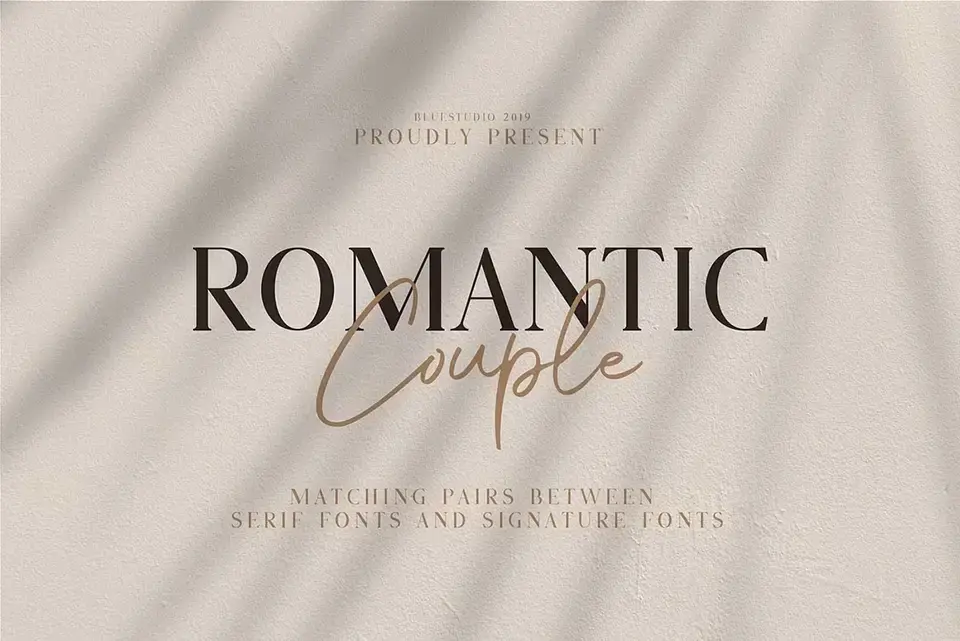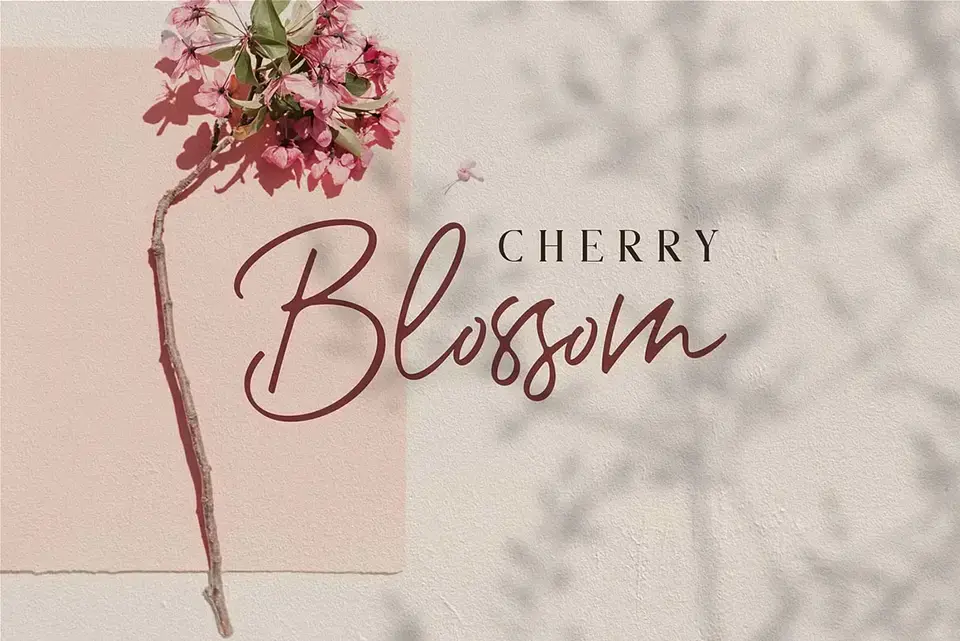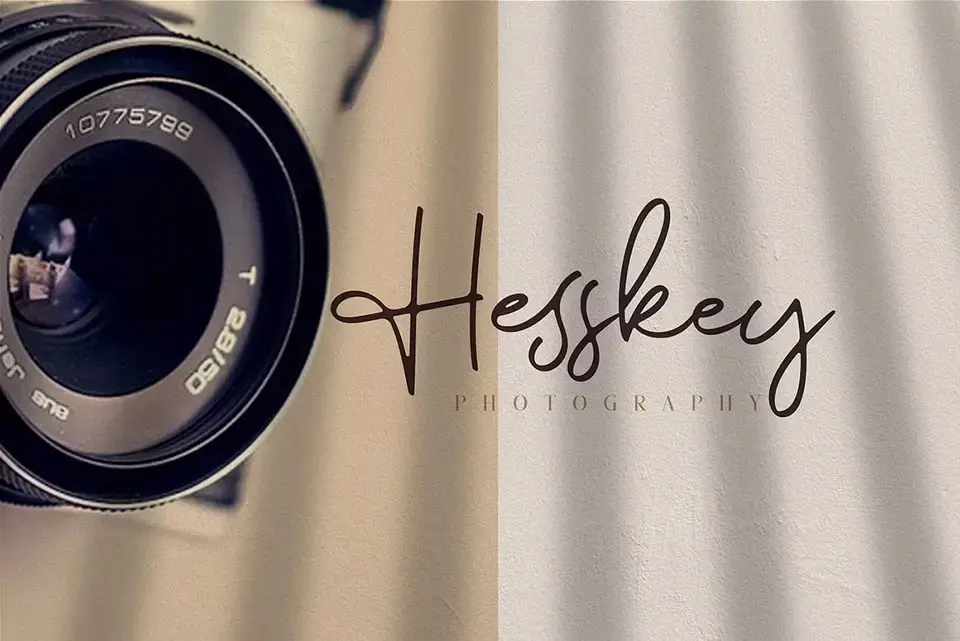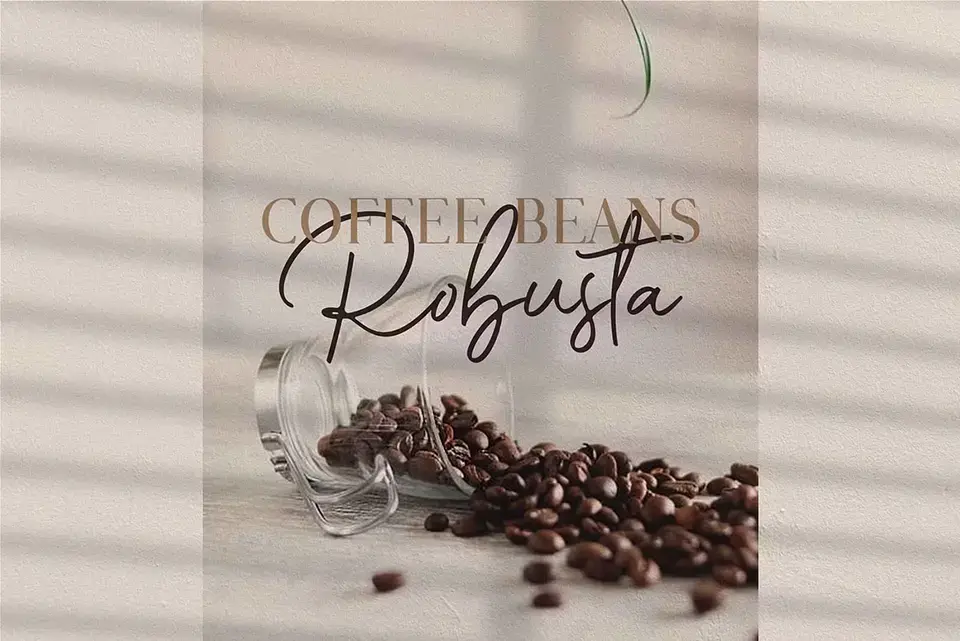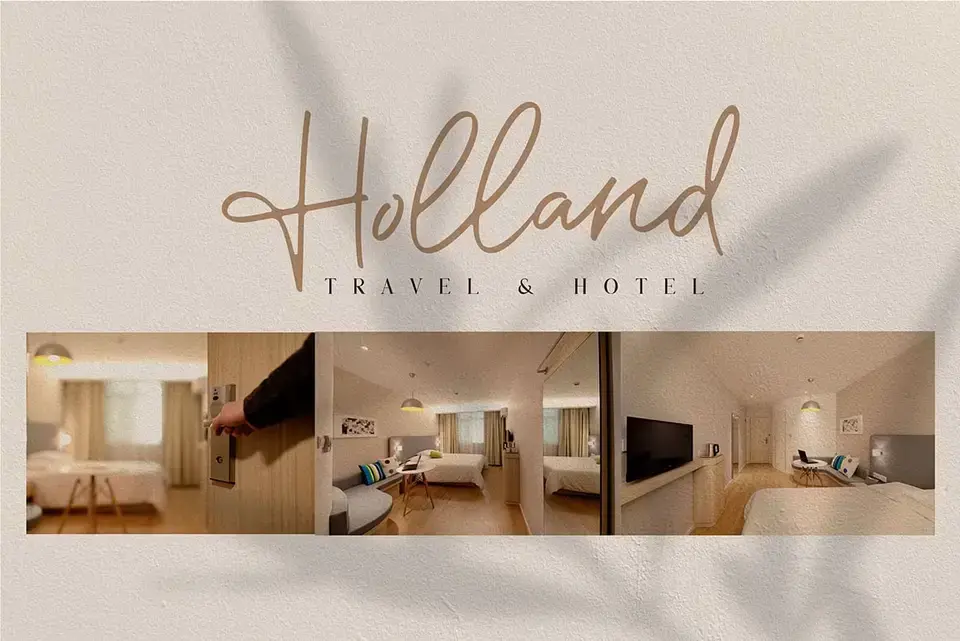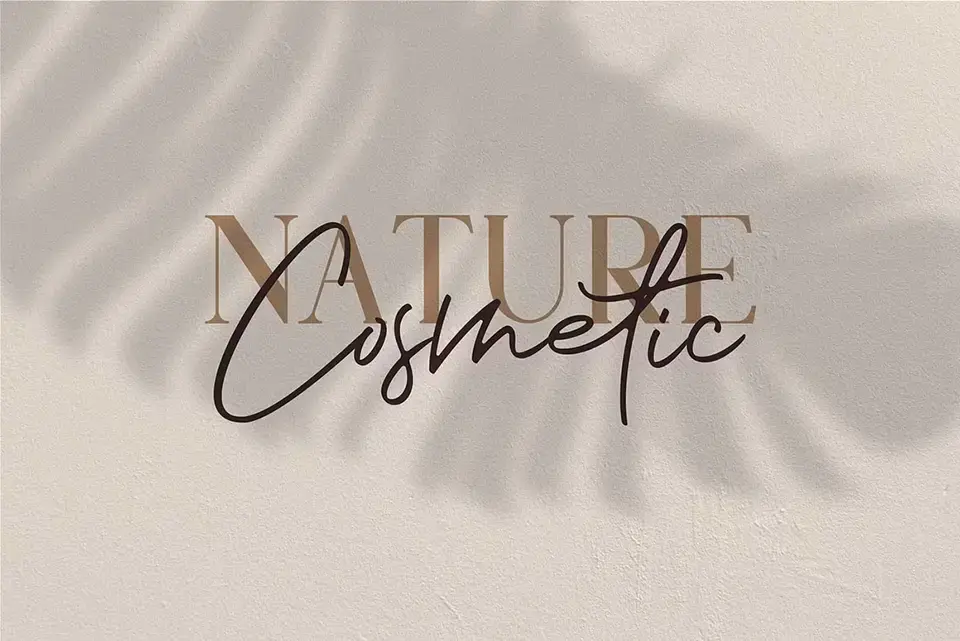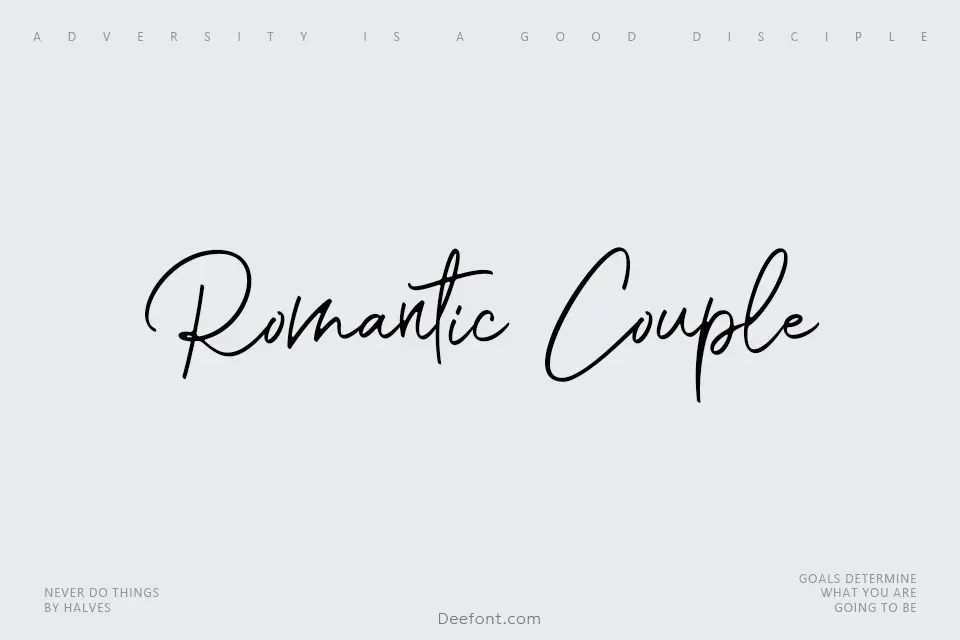
Romantic Couple Script Font
Romantic Couple Script is an exquisite flowing script typeface that brings emotional elegance to your designs. This handwritten-style font features smooth, connected cursive strokes with a natural romantic aesthetic, offering 225 carefully crafted characters including uppercase, lowercase, numerals, and punctuation. The font excels in creating stunning wedding invitations, save-the-date cards, feminine branding projects, calligraphy-inspired posters, greeting cards, and decorative headlines. Its graceful letterforms and authentic handwriting appearance make it ideal for designs requiring a personal, intimate touch that conveys sophistication and warmth. Whether used for luxury packaging, social media headers, or romantic announcements, Romantic Couple Script delivers timeless elegance with a modern sensibility.